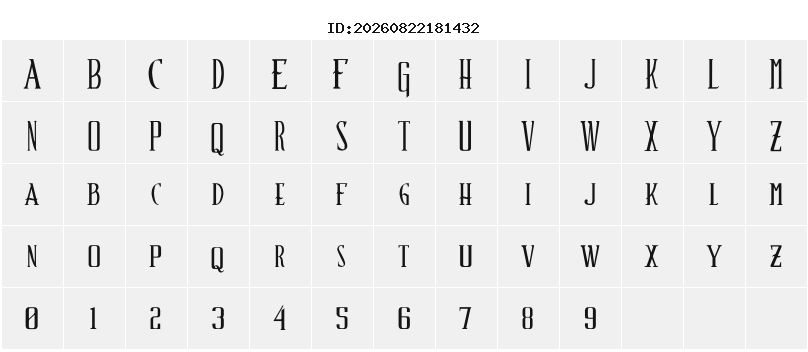
• Font Name: Schindler’s Font
• Designer: © Juan Casco, 2011
About Schindler’s Font.ttf
Schindler’s Font.ttf is a modern, elegant sans-serif font designed for ultimate readability and visual harmony. Perfect for branding, headlines, web design, and print materials.